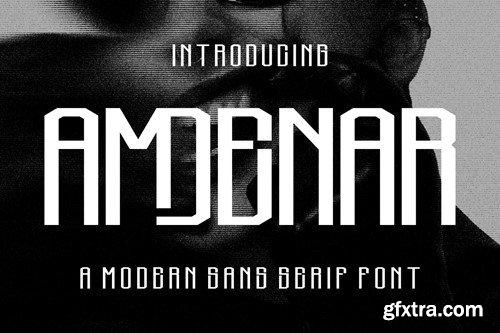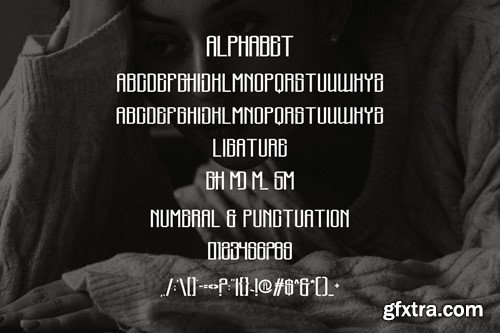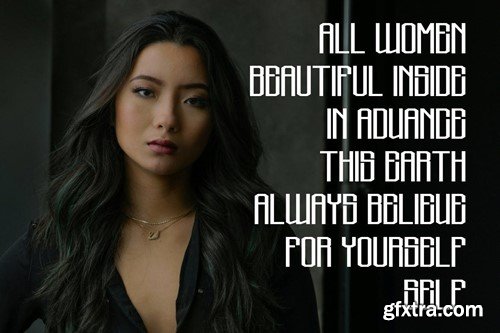
阿曼纳 - 一种无衬线流行字体 LLPGHSU
Amdenar - A Sans Serif Popular Font LLPGHSU
Amdenar - A Sans Serif Popular Font
Introducing Amdenar Modern Sans Serif. Amdenar is a modern and simple font, best used as a display for headings, logos, branding, magazines, product packaging and invitations. Amdenar come with clean lines and smooth curves give any project an extra touch of class.